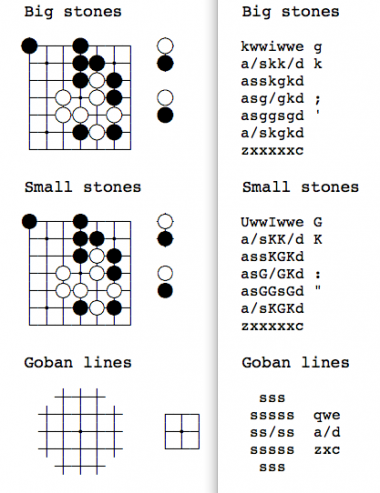
Here's a preview of how to use the goban font.
and here's a key to how to use the font:
qwe
asd
zxc - board lines
/ - handicap spot
key, continued:
rty
fgh
vbn - big white stones on corresponding board lines
uio
jkl
m,. - big black stones on corresponding board lines
; - big white stone
' - big black stone
key, continued:
RTY
FGH
VBN - small white stones on corresponding board lines
UIO
JKL
M[less-than][greater-than] - small black stones on corresponding board lines
: - small white stone
[double-quote] - small black stone